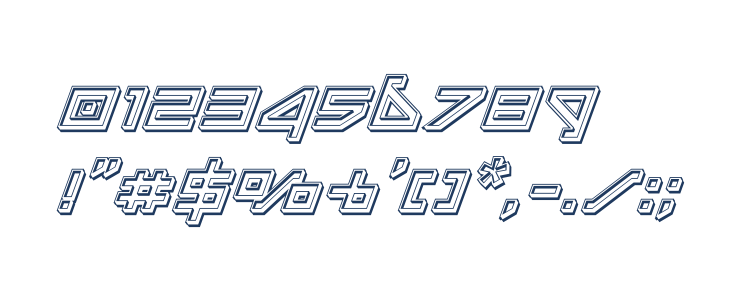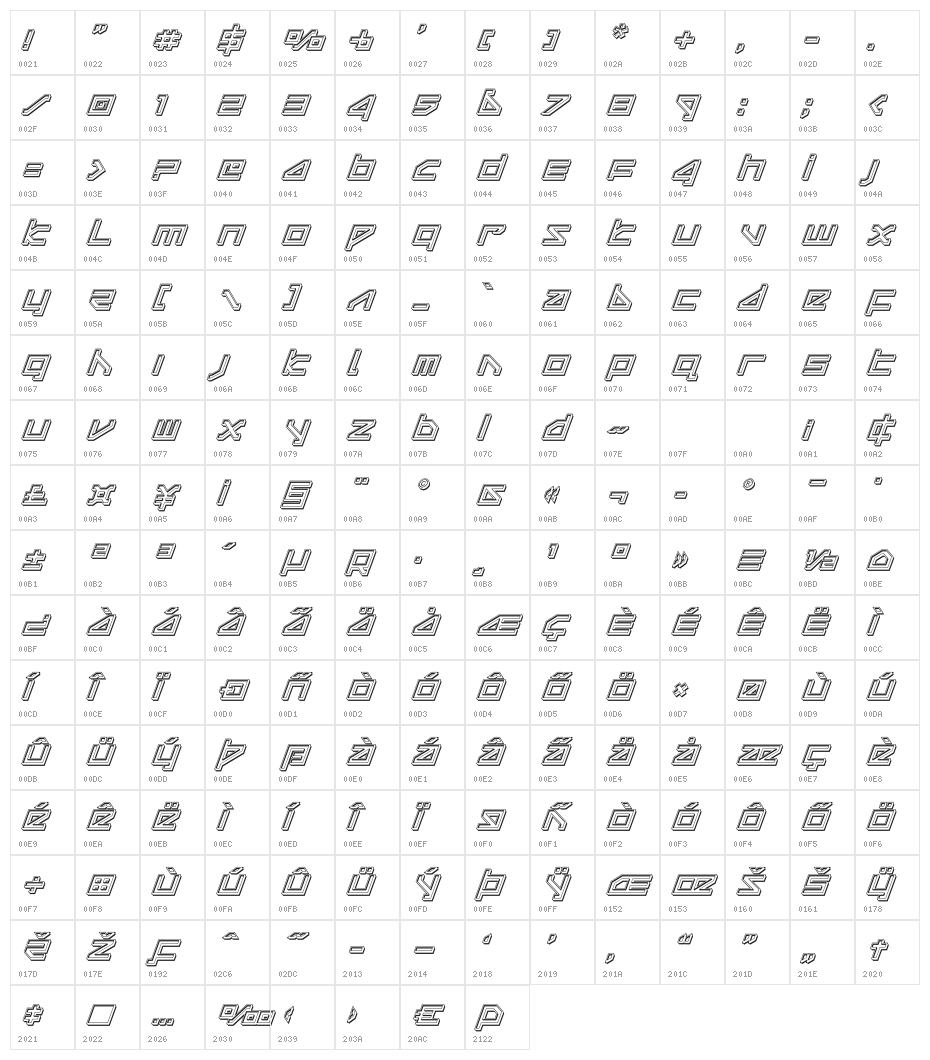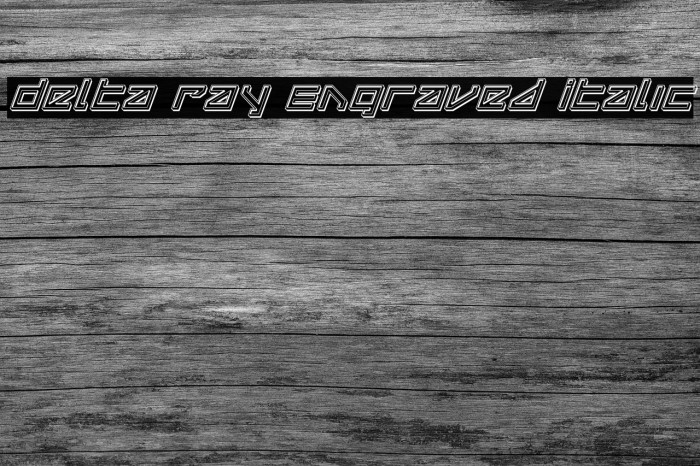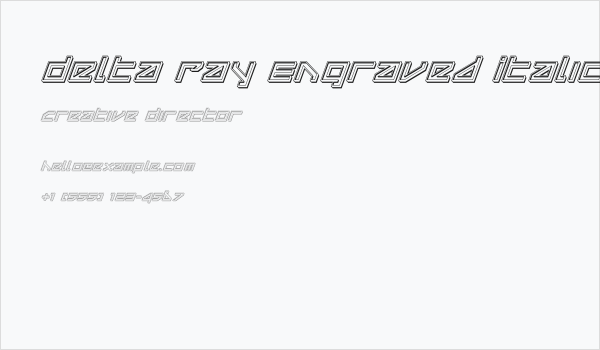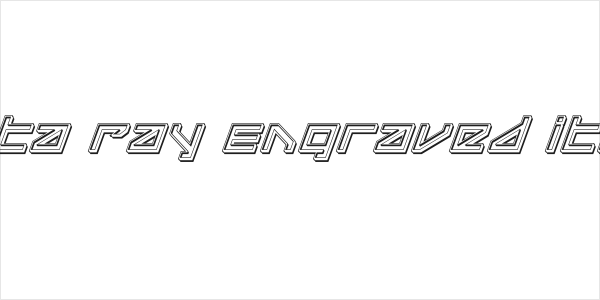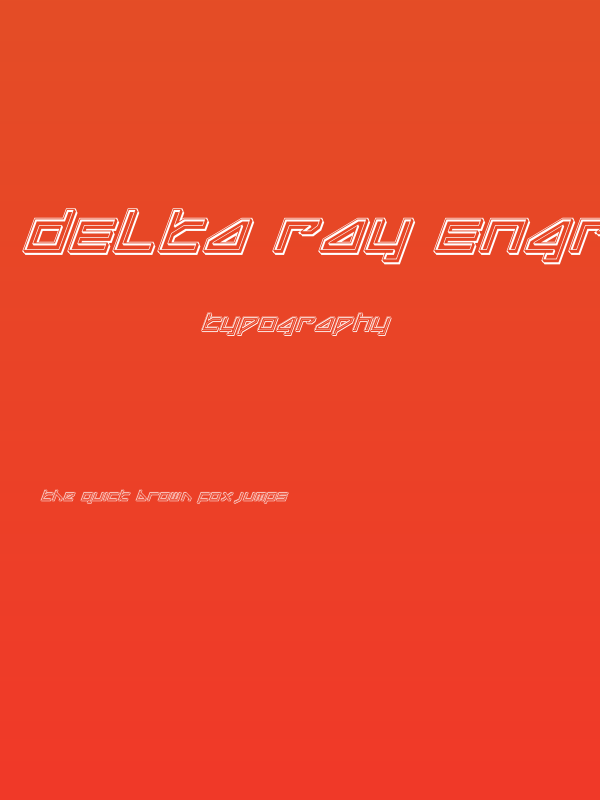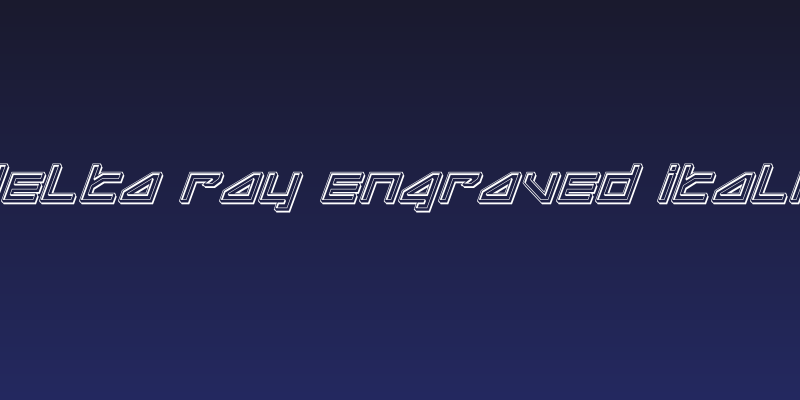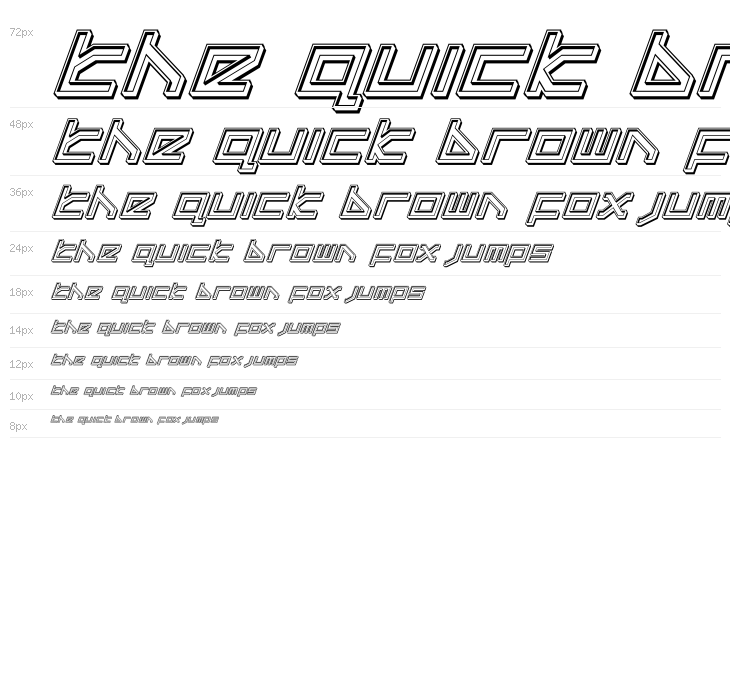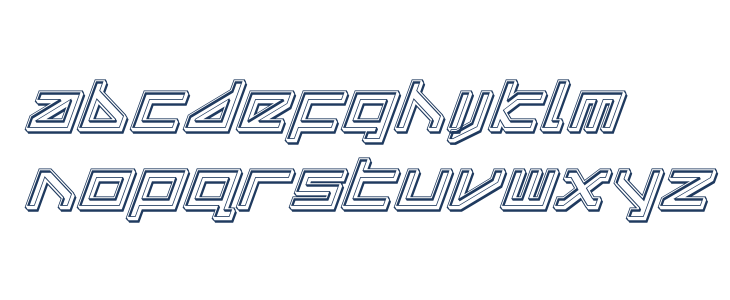
Delta Ray Engraved Italic Font
Delta Ray Engraved Italic Description
This font features a futuristic and dynamic design with an engraved, three-dimensional appearance. The italicized style adds a sense of motion and speed, making it ideal for projects that require a modern and energetic look. The characters are outlined with a double line, creating a layered effect that enhances its visual depth. The geometric shapes and sharp angles contribute to its contemporary aesthetic, while the consistent stroke width maintains readability. This font is suitable for creative and bold applications, where a standout typeface is needed.
Proposed ProjectsIdeal for sci-fi themed designs, video game graphics, tech branding, and modern posters.